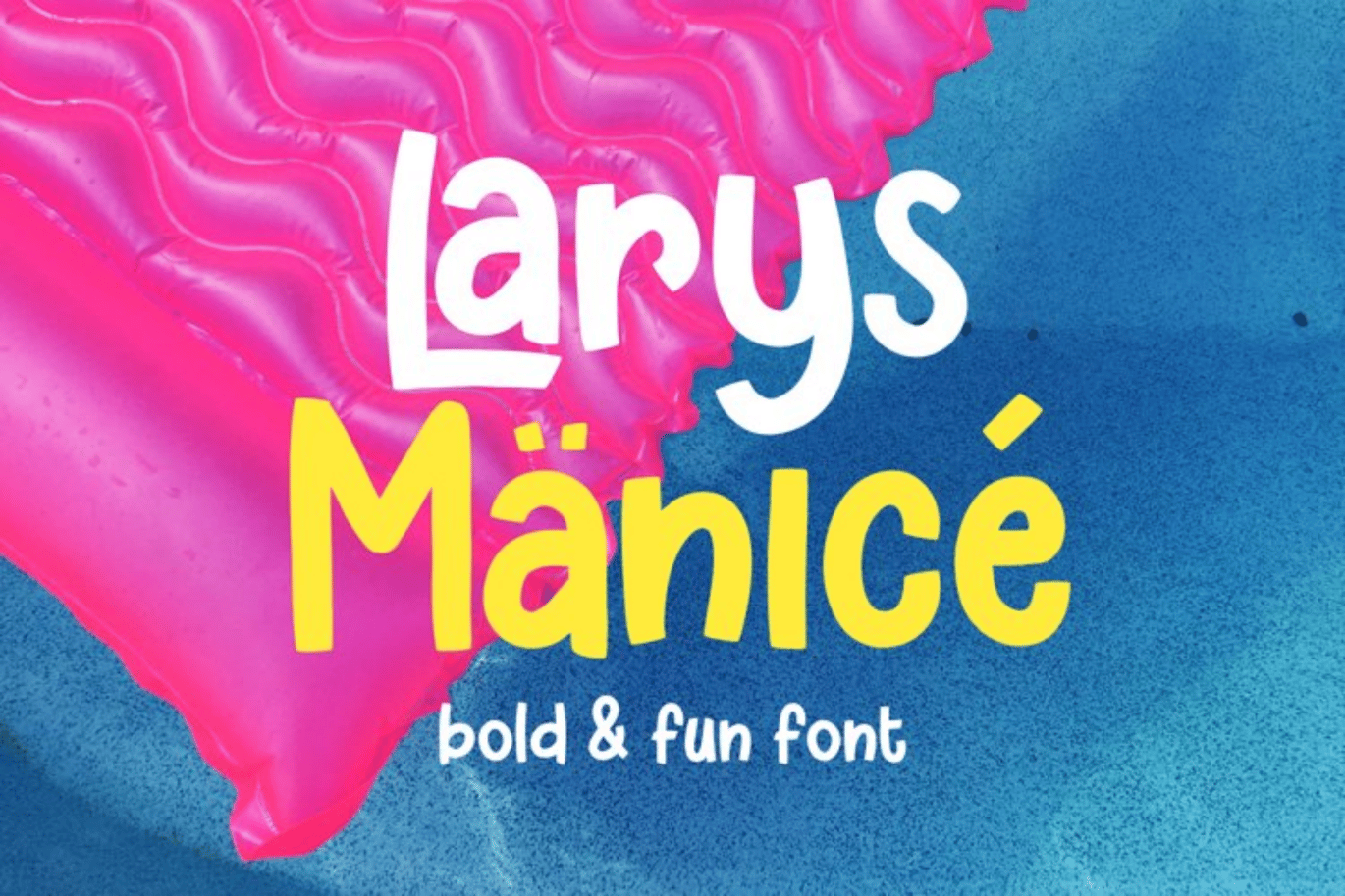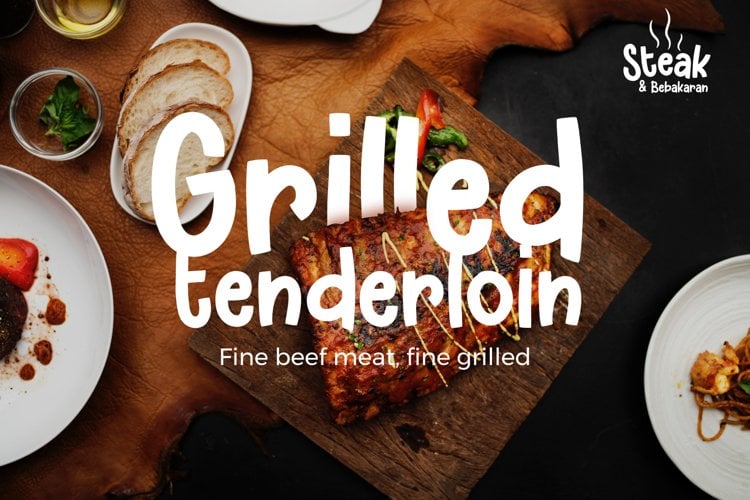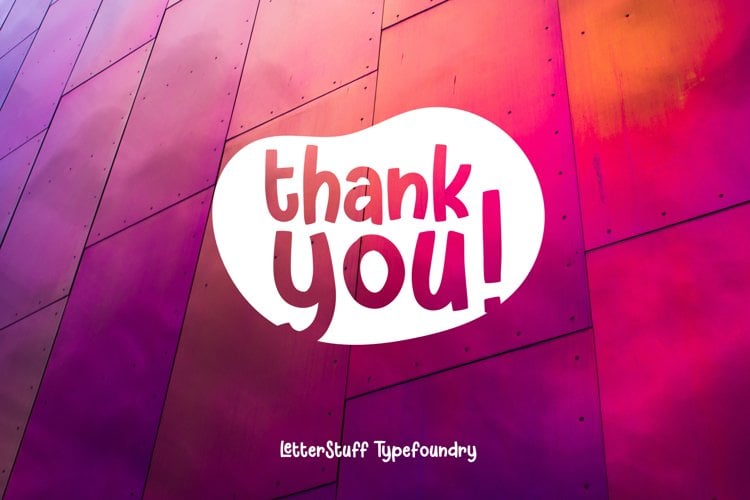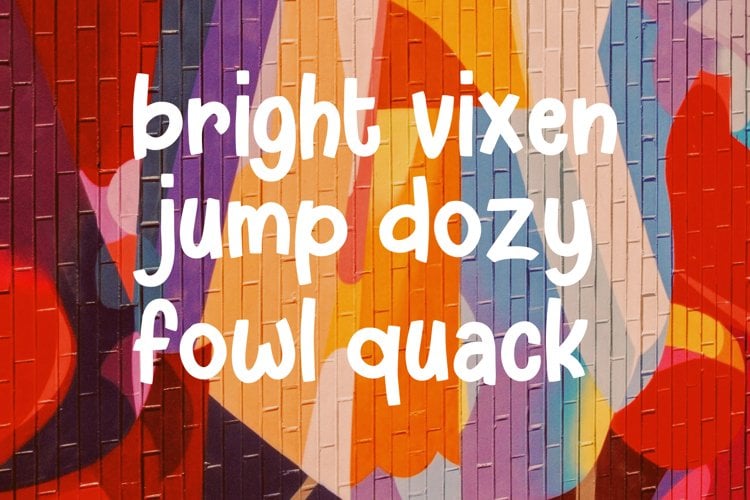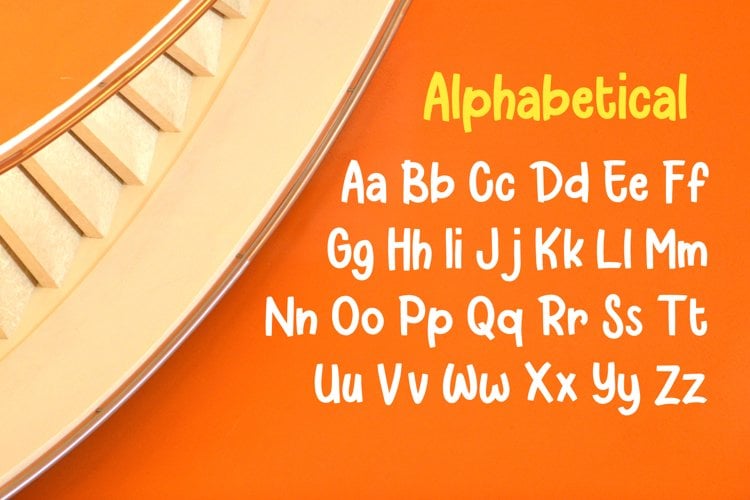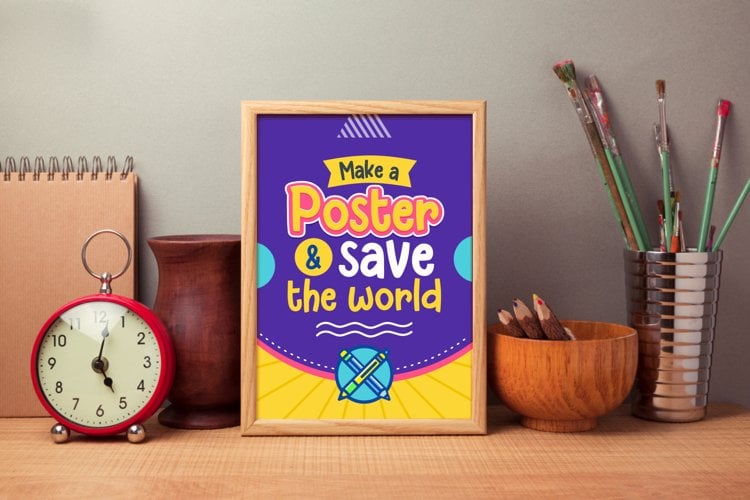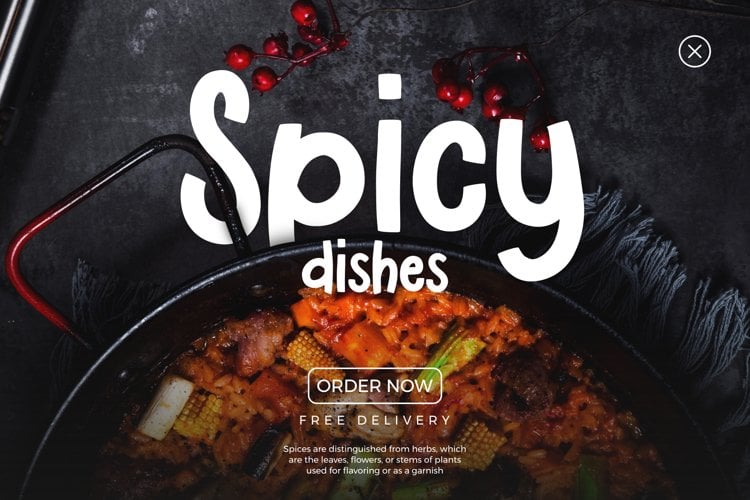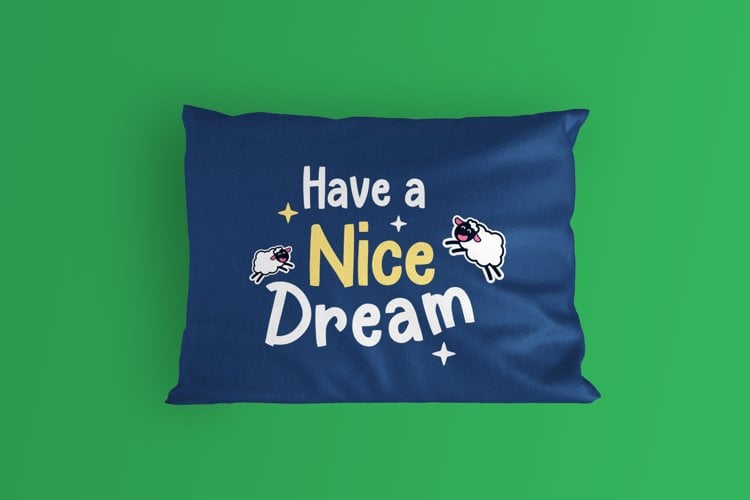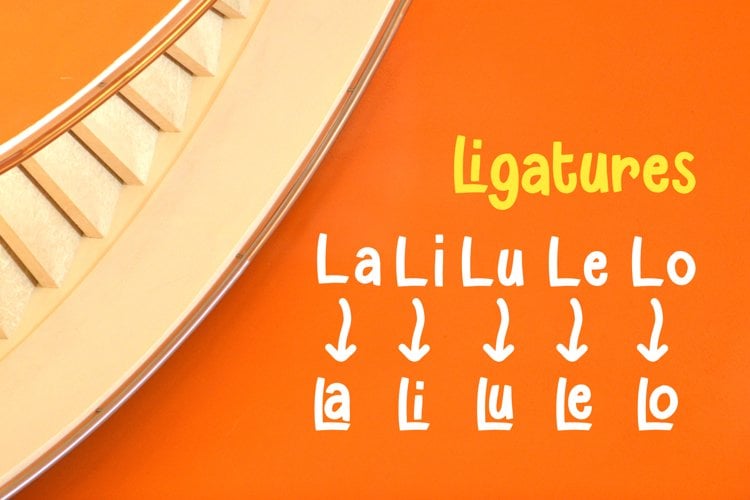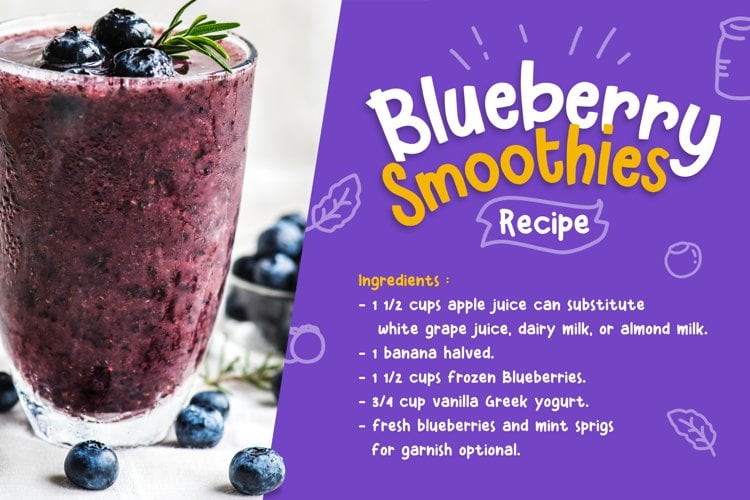
Larys Manice Bold & Fun Font
Larys Manice is bold and fun sans serif font. It brings joyful and happiness to all of us. Inspired by handlettering with marker pen with bold and strong style. This font is ideal for display, text, print, branding, signage, with a set of optimal characters for your design in any layout.
- Multilingual characters support ( Afrikaans, Albanian, Catalan, Danish, Dutch, English, German, Italian, Norwegian, Portugese, Spanisch, Swedish, Zulu )